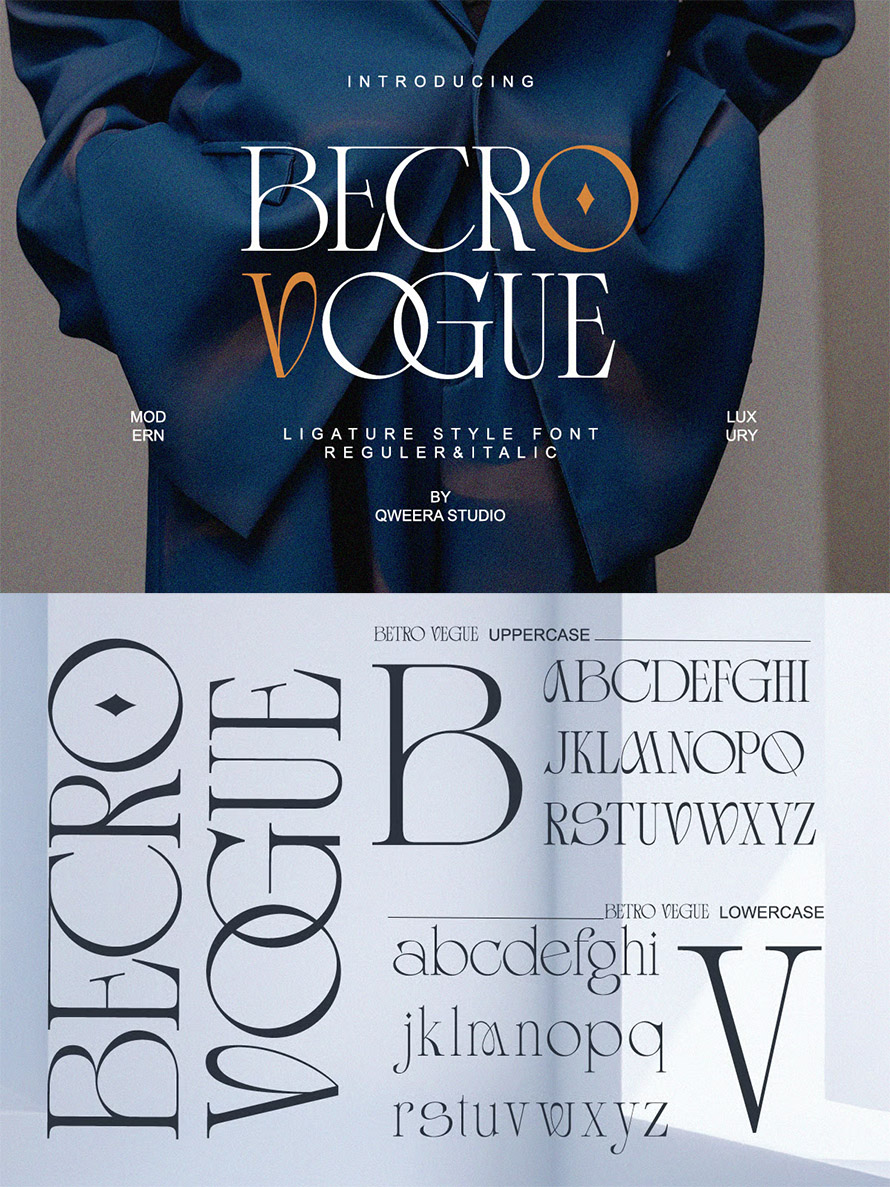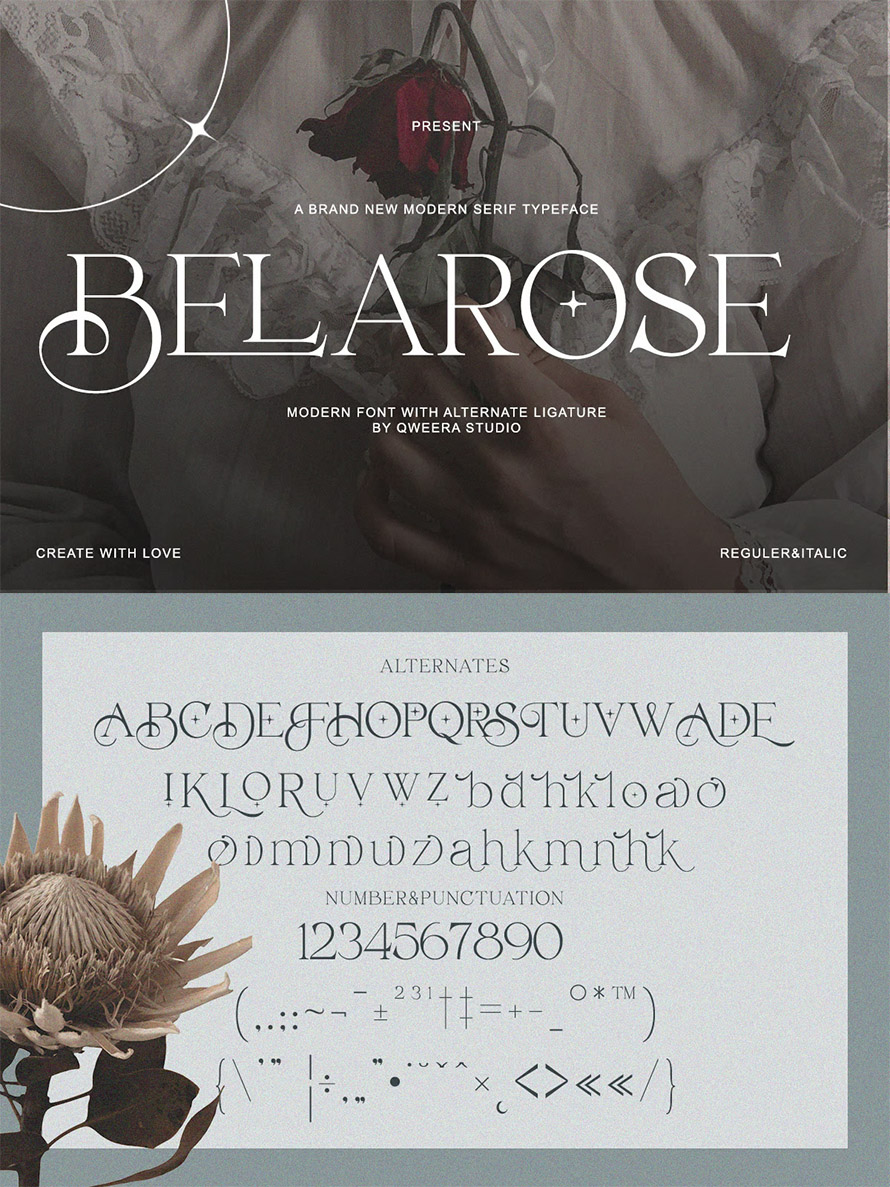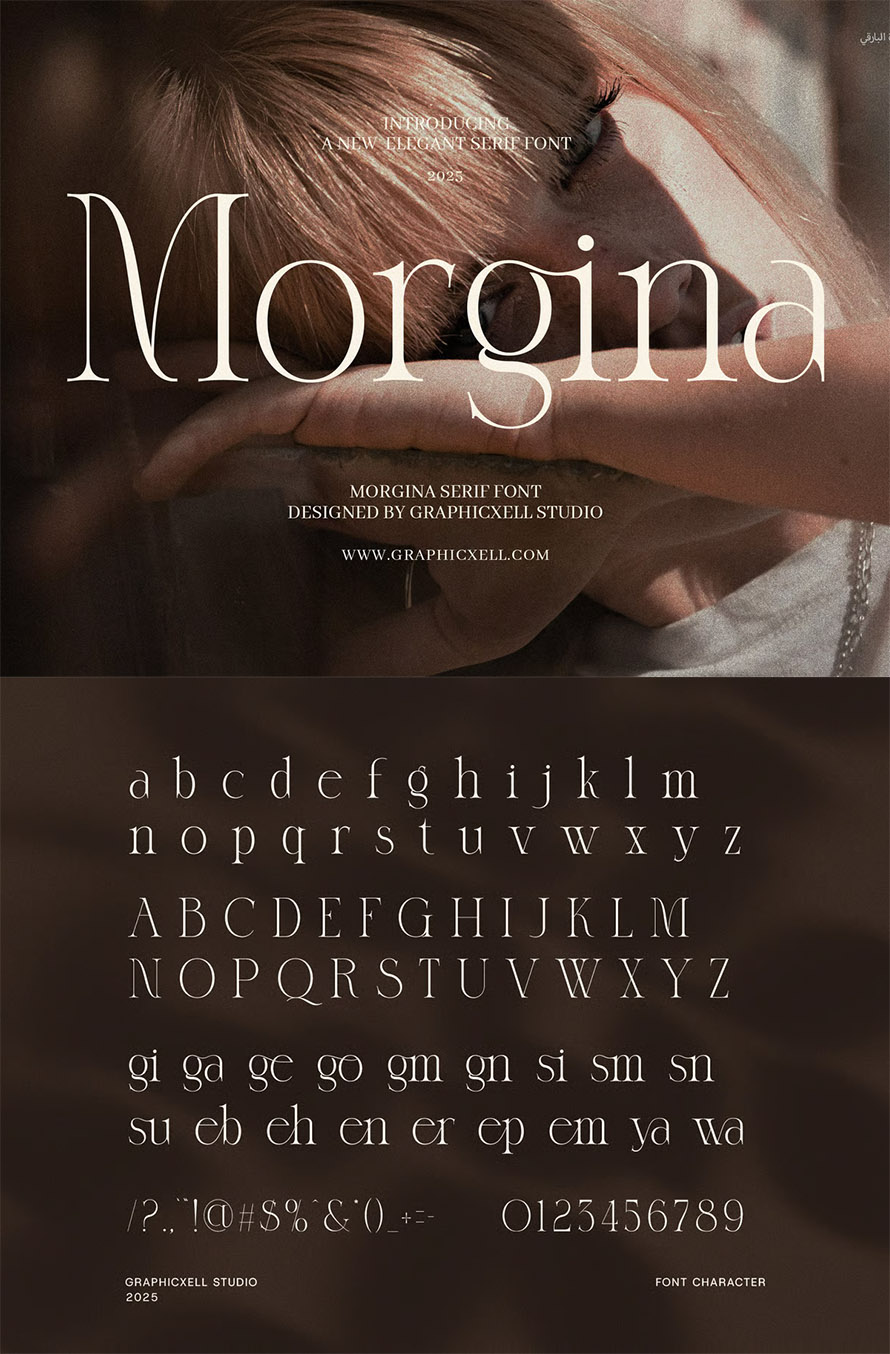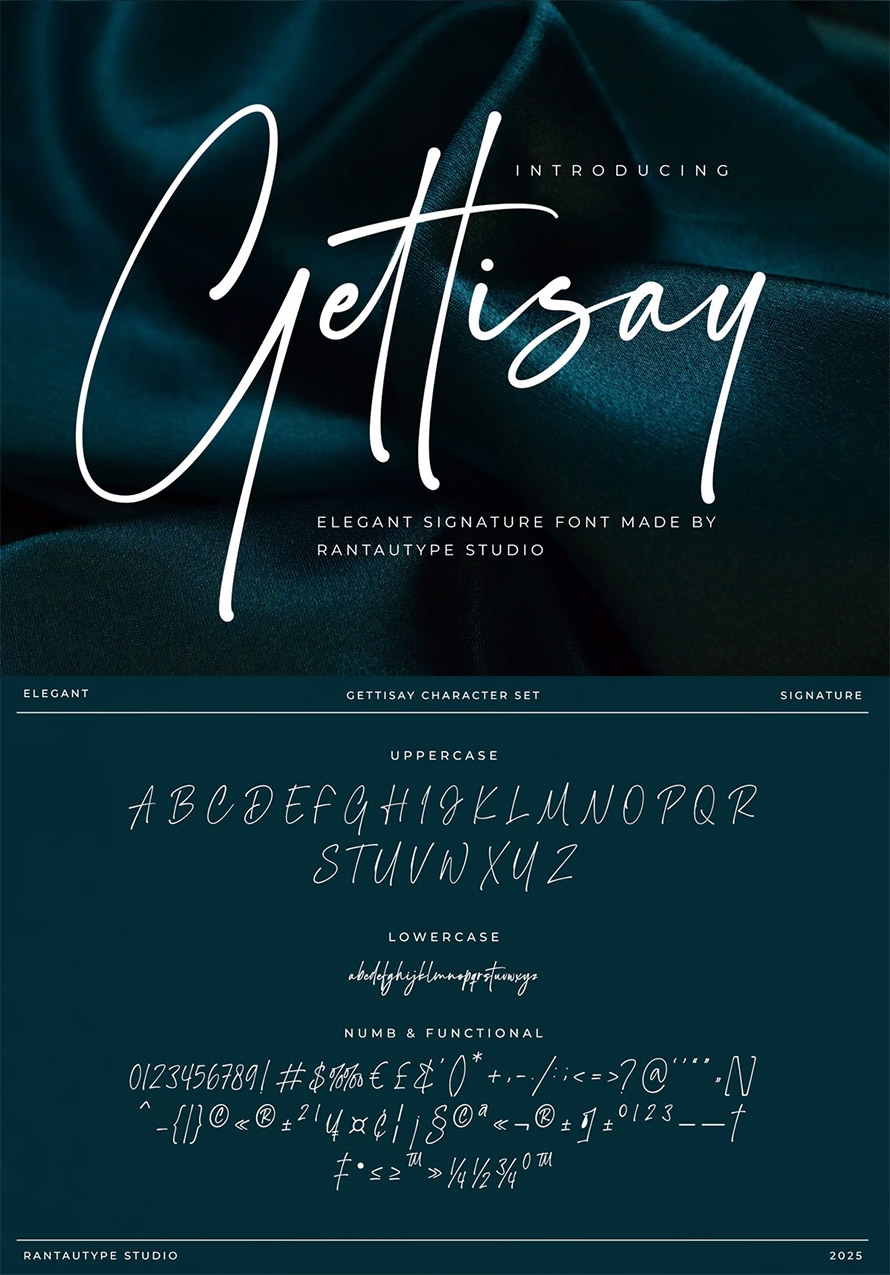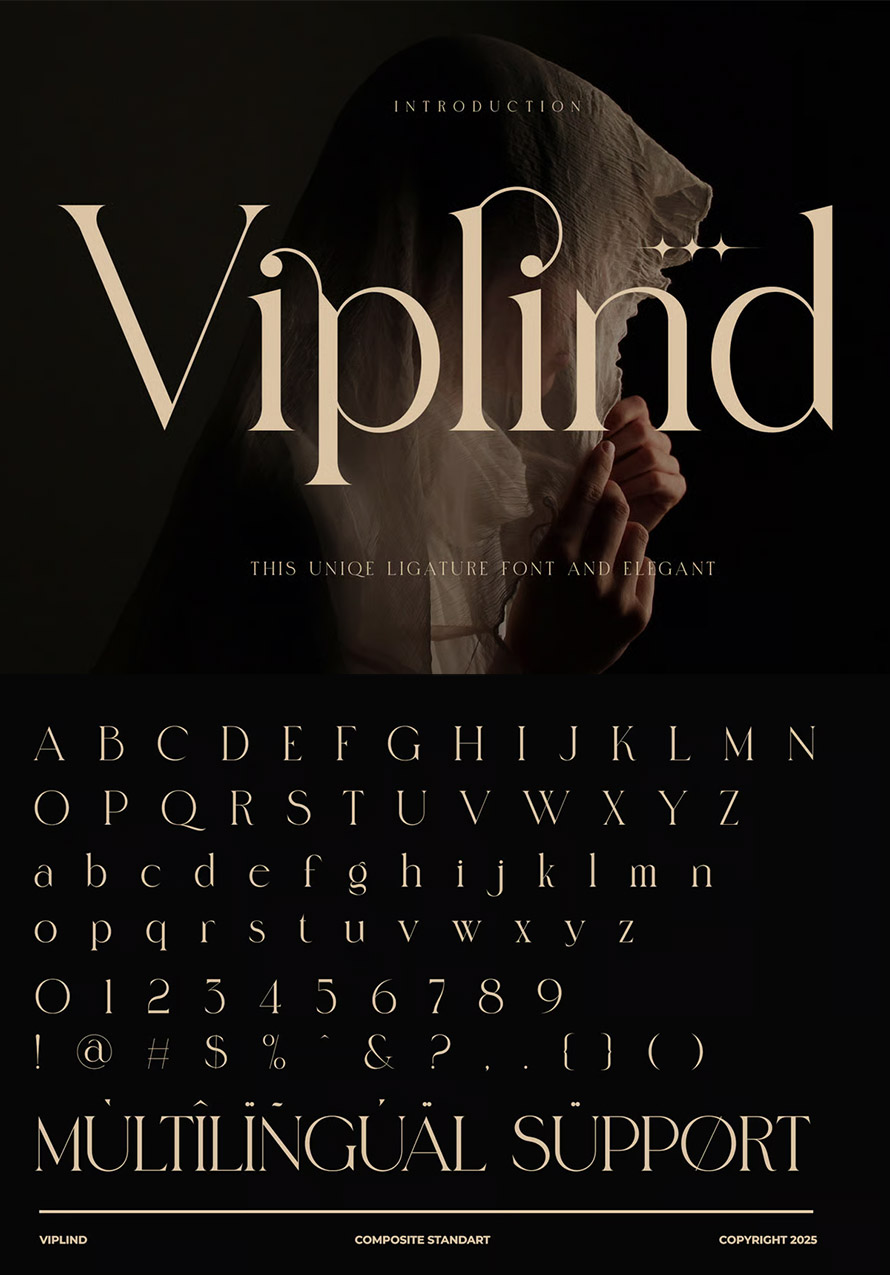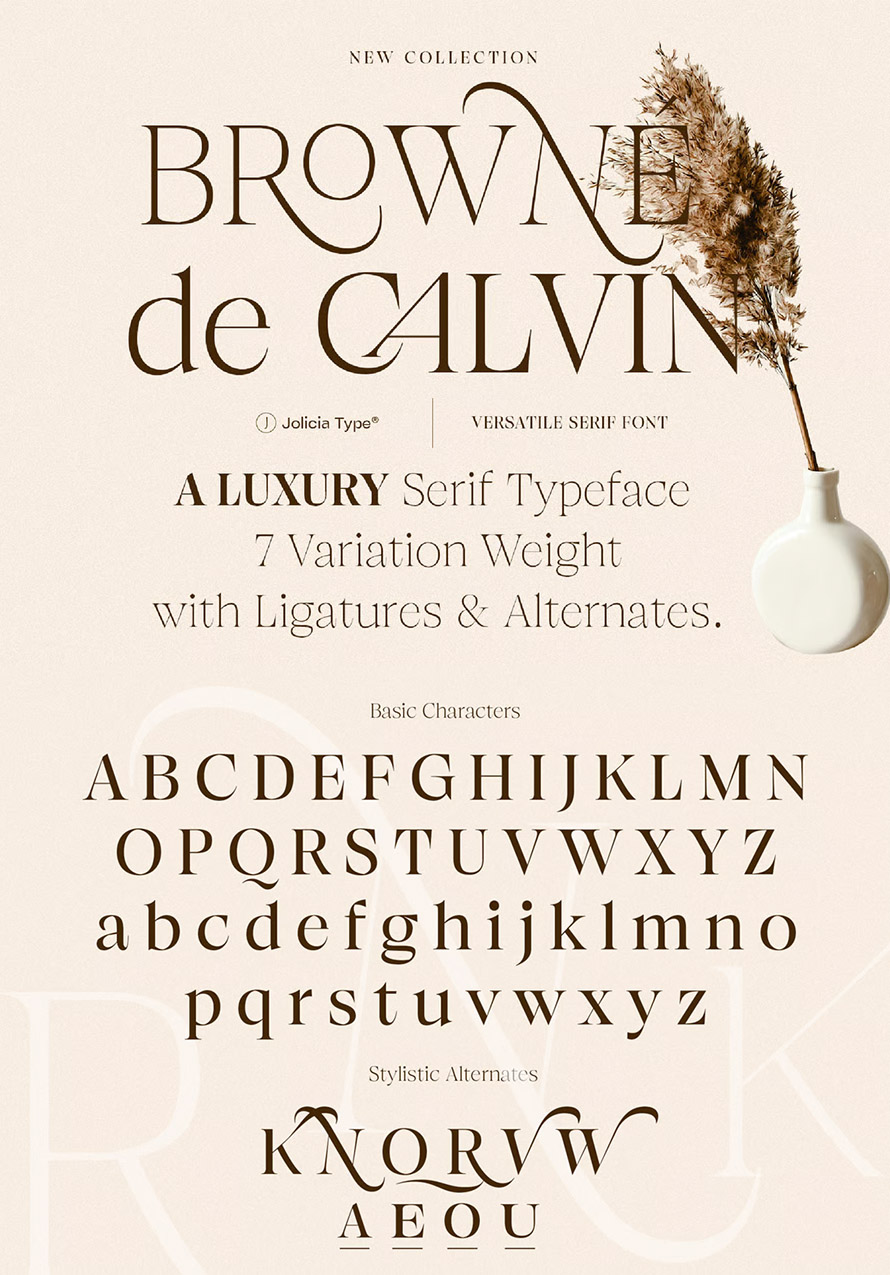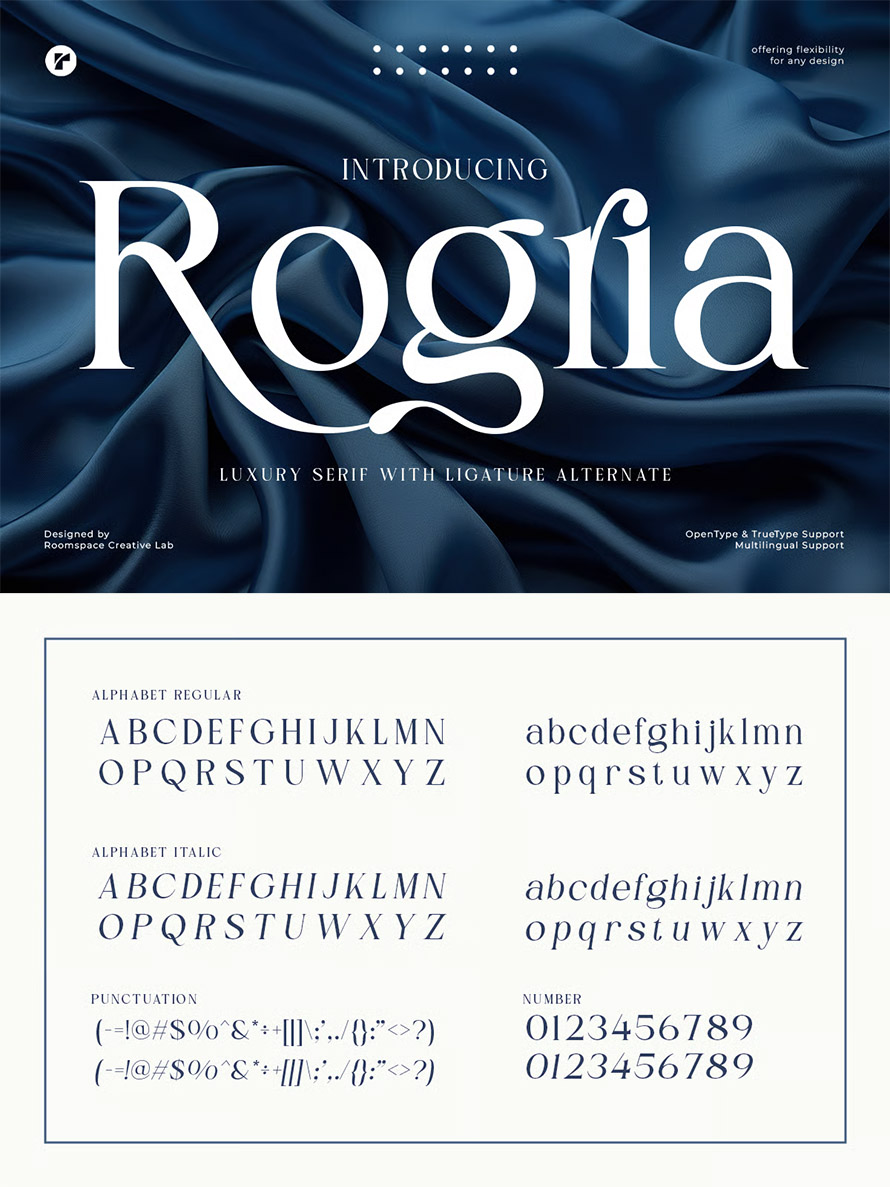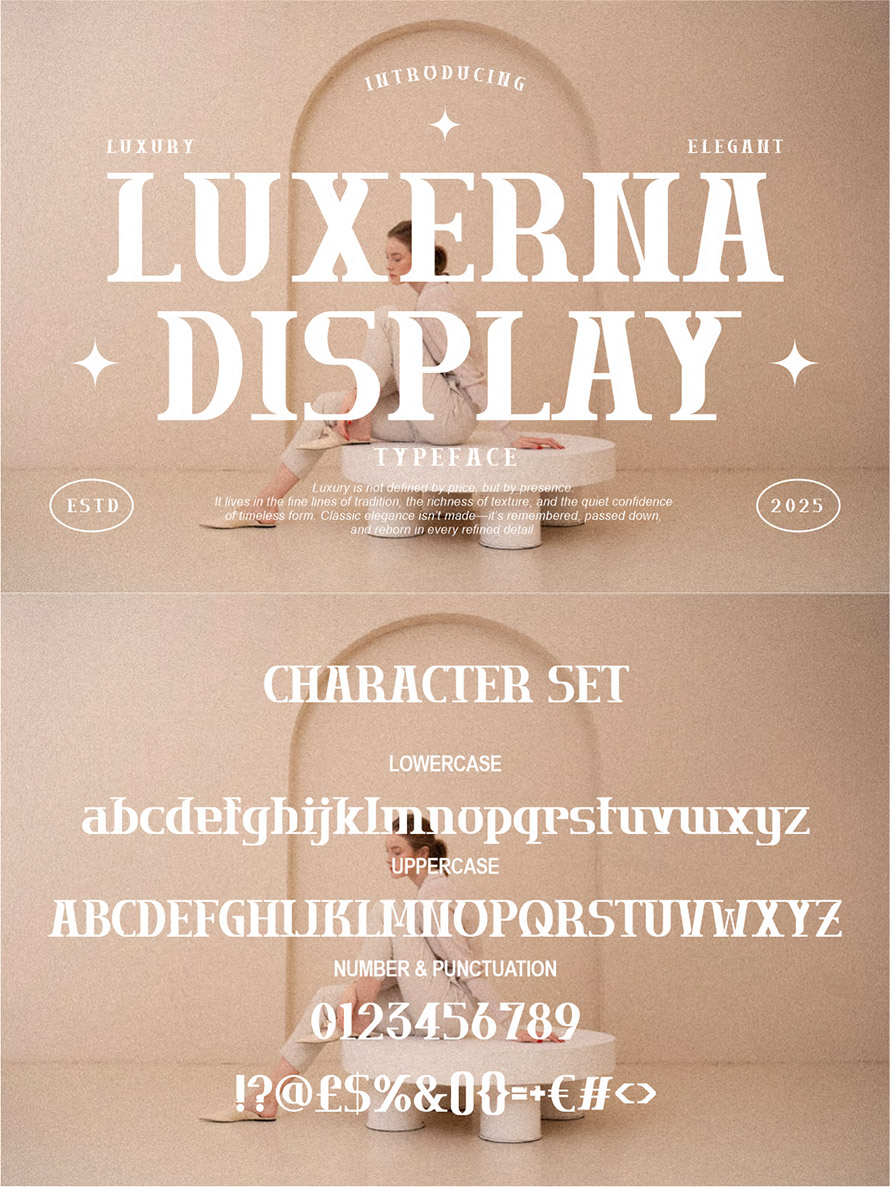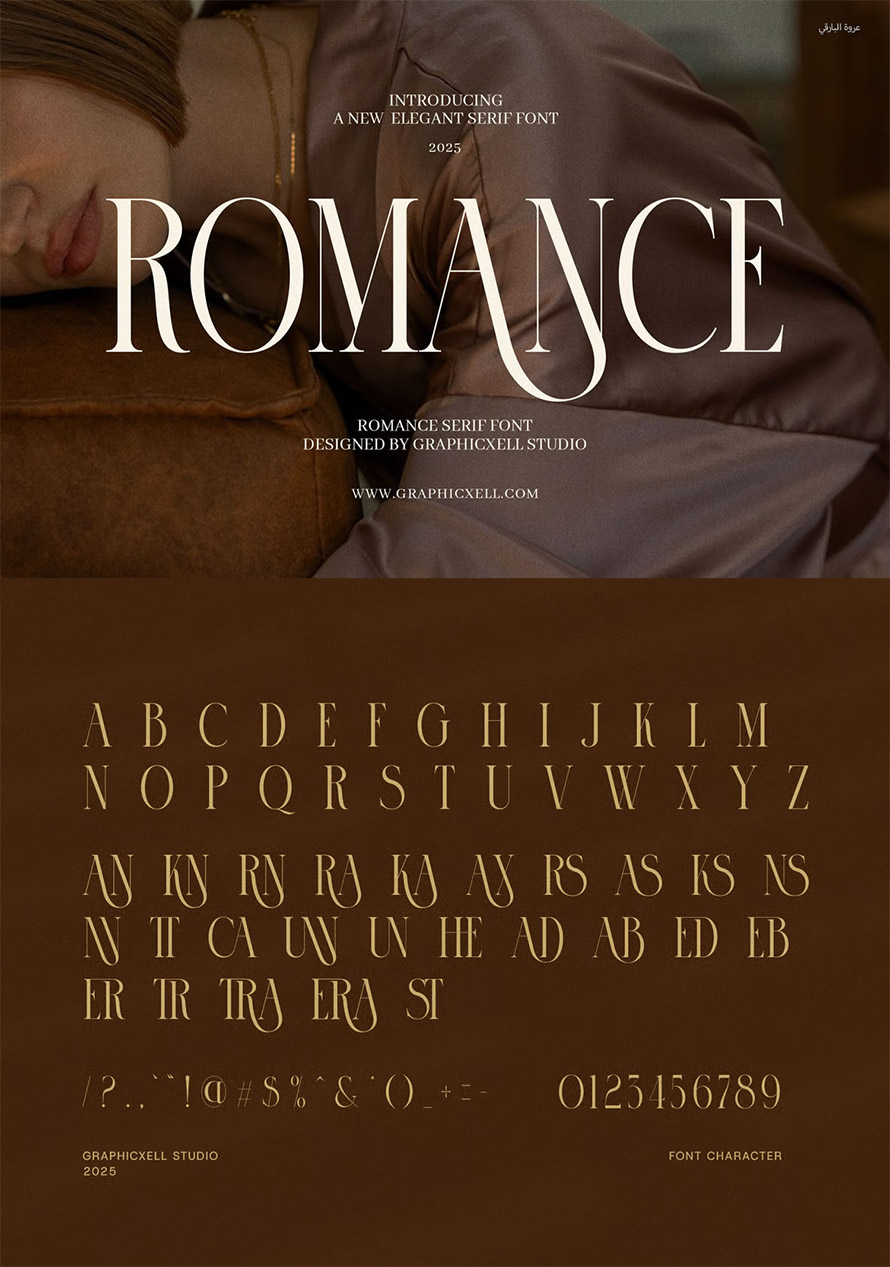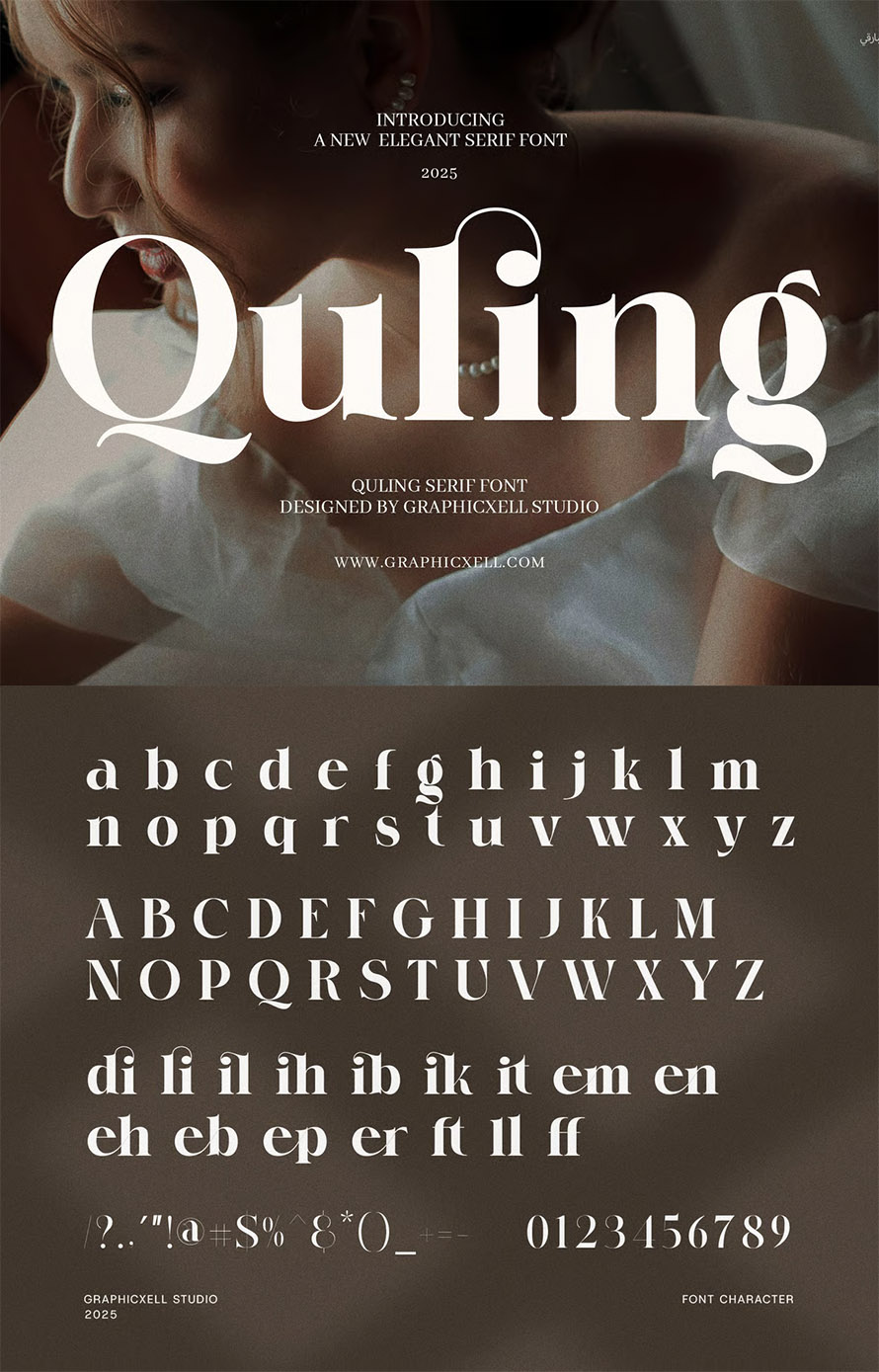
Luxury fonts for logos give your brand a distinct, premium look. Whether you’re working with fashion boutique brands, or luxury services, the logo fonts you choose says a lot about the message you’re sending. If your goal is to communicate elegance and class, font selection isn’t a small decision. It affects how your audience perceives your brand before they even read a word.
The luxury logo fonts are usually clean, minimal, and deliberate. They often use wide spacing, fine lines, and sharp serifs. You’ll notice that many high-end brands use serif fonts—because they look formal, trustworthy, and refined.
Think of logos like Vogue, Chanel, or YSL. They all use fonts that are precise and confident. A single weight variation or a simple serif fonts tweak changes the tone instantly. The message is clear: this brand values quality.
25 Best Luxury Logo Fonts Perfect for Logo Design
Luxury doesn’t mean complicated. You want your logo to look just as strong on a billboard as it does in a small watermark. Choose fonts that are legible at every size. Avoid typefaces that rely heavily on thin lines if you expect to use the logo on digital screens.
Test the font across different mockups. Place it on packaging, on social media headers, or even on a business card. If it doesn’t hold up, keep looking.
Don’t just choose a font that looks good. Think about what it communicates. A sharp, tall serif might give off a bold and assertive vibe. A soft, rounded fonts might suggest a warmer, more approachable brand.
Imagine a luxury skincare line versus a luxury tech company. They both need high-quality fonts, but the tone will differ. What do you want your customers to feel?
Sometimes a font just “feels right.” That intuition matters. If you keep going back to the same style during testing, there’s likely a reason. Trust that instinct, but validate it with mockups, feedback, and use cases.
Don’t rush the process. A logo is often the first and last impression of a brand. Make sure it holds up across time and applications.
Sovence A Luxury Serif Logo Fonts
Sovence is a luxury serif Logo fonts crafted to embody elegance, prestige, and modern refinement. With its high-contrast strokes, graceful serifs, and well-balanced proportions, Sovence is the perfect choice for upscale branding, editorial headlines, wedding stationery, and luxury product packaging.
Dastin Mirelle Font
Dastin Mirelle Font Duo is a luxurious font duo that gracefully blends a sleek modern sans serif with an elegant signature script, capturing the perfect balance between contemporary style and classic charm. The sans serif features clean lines and refined proportions, ideal for premium branding, editorial layouts, and minimalist packaging.
Modern Elegant Luxury Logo Fonts
Betro Vogue is a breathtaking contemporary serif that redefines luxury typography with its sophisticated design. Featuring both Regular and Italic styles with exquisite alternates and ligatures, this font is expertly crafted for elite branding, high-end logos, luxury packaging, and editorial designs that demand prestige and visual impact.
Belarose Modern Luxury Logo Fonts
Belarose is a breathtaking modern serif that combines contemporary elegance with timeless grace. Featuring both Regular and Italic styles with premium alternates and ligatures, this font is expertly crafted for luxury branding, high-end logos, refined packaging, and editorial designs that demand both beauty and functionality.
Morgina Elegant Serif Font
Morgina Elegant Serif Font is a refined blend of classic charm and contemporary sophistication, crafted for designers who crave timeless elegance with a modern twist. With its graceful curves, high-contrast strokes, and distinctive serifs, Morgina brings a luxurious feel to any design project. Whether you’re creating a bold brand identity or adding a touch of class to editorial layouts, this font delivers both beauty and versatility.
Brayena Elegant Serif Logo Fonts
Brayena is elegant serif with delicate curves, high contrast strokes, and refined serifs, this font captures the soul of classic beauty. Each letterform is sculpted with intention—soft yet sophisticated, confident yet romantic.
Gettisay Elegant Signature Font
Gettisay is elegant signature font embrace grace and feminity. Gettisay is a perfectly choice for any creative endeavor, creating, modern, chic, lifestyle design such as logotype, title, cover, branding, invitations, wedding designs, display and magazine, social media posts, advertisements, printed quotes, product packaging, corporate brand, product designs, labels, photography, watermarks, special events and any other project with modern touch.
Viplind Elegant Ligature Serif Font
Viplind an elegant ligature serif modern font that evokes the beauty of fresh blooms and timeless elegance. With its bold yet refined ligatures, Viplind stands out as a sophisticated and feminine typeface. Perfect for upscale designs, whether for florals, fashion, or high-end branding, Viplind pairs the charm of classic serif styles with a modern twist. Every letter feels intentional, with a soft and graceful presence that elevates any project it touches.
Browne de Calvin Font
Introducing Browne de Calvin, a timeless serif typeface crafted with exquisite elegance and sophisticated precision. Designed to embody the spirit of luxury, Browne de Calvin blends the classic beauty of Roman serif tradition with a contemporary refinement, making it a perfect choice for high-end branding, editorial designs, invitations, and more.
Luxury Modern Elegant Logo Fonts
Rogria Serif is a sophisticated typeface designed for creatives who value refined typography and timeless aesthetics. With its dramatic contrast and sculptural curves, it brings a unique voice to high-end branding and editorial design. Rogria Serif’s elegant strokes and strong vertical stress convey luxury, structure, and modern poise in every headline or title.
Modern Minimalist Font
Luxerna Display is a sophisticated typeface that embodies the essence of modern elegance and classic luxury. Designed with sharp transitional serifs and a confident high-contrast weight, this font draws inspiration from heritage typography often seen in upscale branding, couture magazines, and timeless editorials. Each character in Luxerna Display is meticulously crafted with subtle curves and exaggerated terminals, striking a balance between traditional refinement and contemporary flair.
Rigena Elegant Serif Logo Fonts
Rigena Elegant Serif Font is a timeless blend of sophistication and creativity—a modern serif typeface designed to make every word feel elevated and intentional. Crafted with elegant curves, high-contrast strokes, and subtle flourishes, Rigena embodies classic beauty with a contemporary edge. It’s the perfect font for brands and creatives looking to leave a lasting impression.
Romance Elegant Serif Font
Romance Elegant Serif Font is a graceful and contemporary serif typeface that captures the essence of timeless beauty and modern sophistication. Designed to convey charm and refinement, Romance features delicately sculpted letterforms with elegant serifs, making it the perfect choice for projects that require a luxurious and polished touch.
Quling Elegant Serif Font
Quling Elegant Serif Font is a modern serif typeface that blends sophistication with a creative edge—perfect for designers seeking a stylish, versatile font that adds a premium touch to every project. Featuring sleek lines, refined curves, and distinctive serif details, Quling captures attention while maintaining effortless readability.
Simple Kindness Luxury Sans Font
Simple Kindness is modern sans serif with classy italic version. Inspired by historical letterforms for its construction, this typeface also incorporates new and dynamic forms. Simple Kindness has 2 styles: Roman and Italic uppercase form showing classy and unique character. Simple kindness is perfect for creating classy and clean and elegant designs such as logos, packaging, editorials and more.
Aveneyr Elegant Sans Serif Font
Aveneyr is a high-contrast serif typeface exuding luxury, poise, and modern refinement. Every curve and terminal is sculpted to reflect elegance with a bold edge—perfect for premium branding, high-fashion editorials, luxury skincare labels, and cinematic websites.
Elegant Serif with a Modern Twist Font
Bavory is a refined serif typeface that seamlessly blends timeless elegance with a fresh, modern edge. Designed for those who seek sophistication in every detail, this font elevates your visuals with its graceful curves and striking ligatures that bring each word to life.
Malfina Elegant Serif Font
Introducing Malfina, a refined and stylish serif font that perfectly balances classic charm with a contemporary edge. Crafted for creators who value both beauty and functionality, Malfina is more than just a typeface — it’s a statement. With graceful curves, high-contrast strokes, and meticulously designed ligatures and alternates, this font brings a sense of elegance and individuality to every project.
Saillen Elegant Serif Font
Introducing Saillen, a beautifully crafted elegant serif font that captures the essence of modern sophistication and timeless style. Designed to elevate your creative projects with grace and distinction, Saillen is the perfect choice for designers seeking both versatility and refined character.
Ragier Elegant Serif Font
Introducing Ragier, an exquisite elegant serif font that blends timeless sophistication with a fresh, contemporary twist. Designed for creatives who value detail, style, and versatility, Ragier brings a high-fashion look to any design project — whether it’s refined and minimal or bold and expressive.
Morina Elegant Serif Font
Step into a world of timeless beauty with Morina, a sophisticated serif font that fuses classic form with a modern, fashion-forward aesthetic. Designed for those who appreciate subtle detail and polished typography, Morina offers a clean yet luxurious feel — ideal for projects that demand both refinement and originality.
Srigen Elegant Serif Font
Meet Srigen, an elegant and modern serif font that exudes confidence, creativity, and timeless beauty. Designed with graceful curves and refined details, Srigen brings a sense of luxury and professionalism to your work while offering high versatility for a wide range of applications.
Cairde Luvia Font
Cairde Luvia is an exquisite serif typeface that embodies refined elegance and timeless luxury. Featuring both Regular and Italic styles with premium alternates and ligatures, this font is meticulously crafted for high-end branding, luxury logos, premium packaging, and editorial designs that demand sophistication and prestige.
Noobiera Luxury Branding Font
Noobiera Luxury Branding Font is a premium luxury branding font designed to bring elegant sophistication to your branding and design projects. Crafted with modern serif elegance, this font offers a sleek, stylish, and professional touch for logos, marketing materials, packaging, and digital applications.
Elegant Ligature Serif Font
Gradine is a refined serif typeface that blends timeless elegance with modern sophistication. Designed with graceful curves and high-contrast strokes, every character radiates a sense of luxury and confidence. With stylish ligatures and alternates, Gradine is perfect for fashion branding, magazine headlines, wedding stationery, and premium packaging design.
Tangoure Modern Sans Serif Font
Tangoure is a modern sans serif font that radiates grace, refinement, and timeless elegance. It’s not just designed—it’s composed with intention. Every letterform flows with subtle sophistication, offering a clean, high-end aesthetic that elevates visual storytelling across digital and print mediums. The font’s stylish alternates and letterform variation bring uniqueness without distraction, making it ideal for upscale fashion, boutique branding, luxury packaging, and high-conversion social content.
A great logo font doesn’t shout. It speaks clearly, confidently, and consistently. Your goal is to find one that supports your brand message without overshadowing it.
If everyone uses the same font, it stops feeling exclusive. Fonts like Didot or Bodoni are iconic, but they’re also everywhere. Use them only if they fit your brand perfectly—not just because they’re popular.
You can find similar alternatives that still feel luxurious but give your logo a fresh identity. Look for small type foundries or independent designers offering unique options.